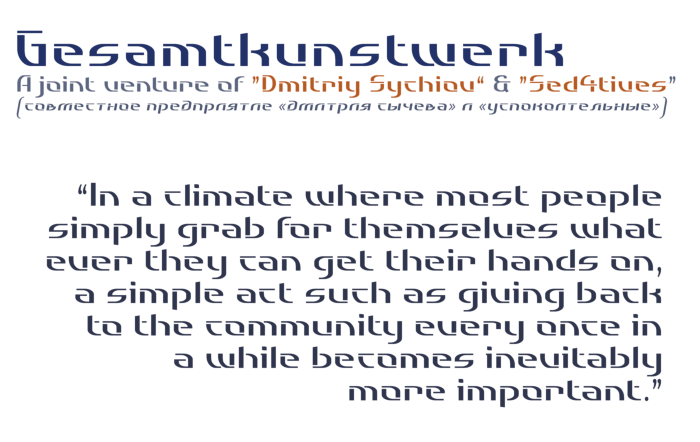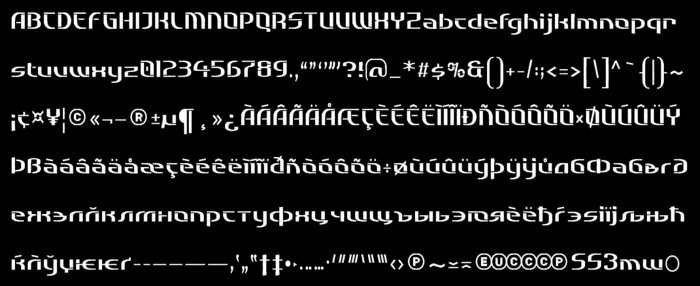
This Fontstruction is a joint venture between Dmitriy Sychiov and myself, Sed4tives.
A while ago I had the concept basic forms for this design pre-published in an effort to try and reach out to y'all, asking if any of you was interested in joining me in this attempt to create a multi member community collaboration.
The original idea had I invisioned at that time was; presumptuous that most writing systems have two parallel sets of letters that can be used to distinguish between upper- and lowercase. That hypothetically could than be divided in two separate "Half-A-Bets" (oopz, lol). One one for upper- and a second for lowercase. Allowing two Fontstructors to each choose their own designated section within that specific language. But enthusiasm quickly reached critical mass, making a mild gesture go ballistic and somehow sketched this crazy wild idea of having multiple participating parties that each reserved one-half of a language within one of the several designated ranges for the Basic Multilingual Planes (preferably within their native writing system if possible), and in turns to each have them supply the glyph set for their section.
Oh, and "Sweet mother of a blind gekko", boy what was I wrong, as eventually only one Die-Hard going by the name Dmitriy hooked up with the project in the end.
So hereby I proudly present the results of this combined forces:
"Gesamtkunstwerk" — A Futuristic sci-fi stencil sans
Some small things still need additional work, such as kerning (which is incomplete and remains a WIP for now), Cyriillic script still missing uppercase set. All of this is scheduled to be included soon, so stay tuned..